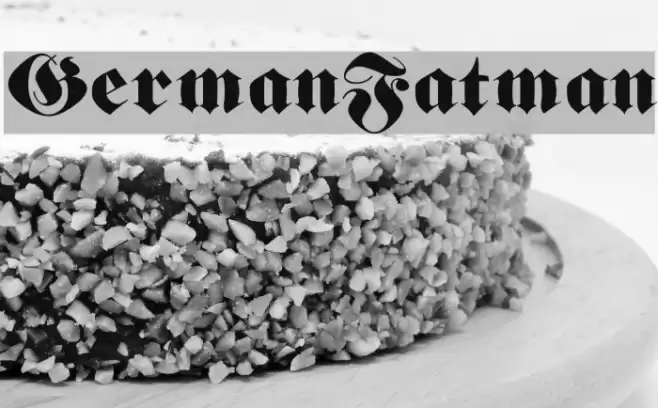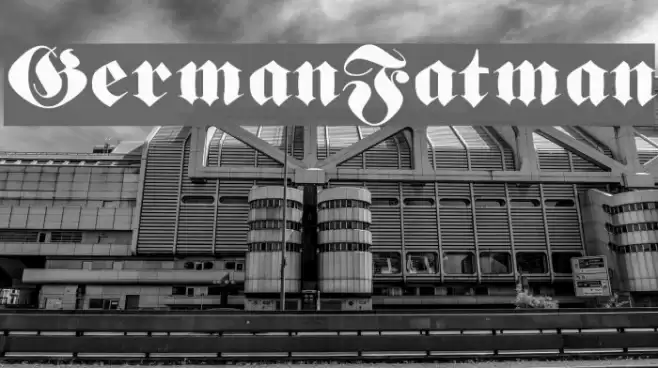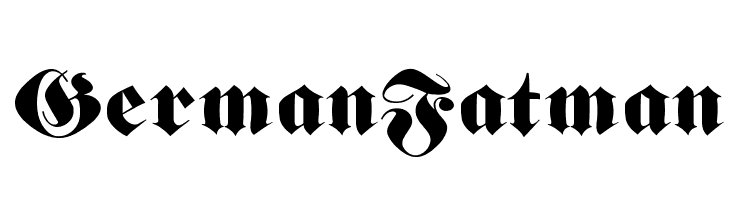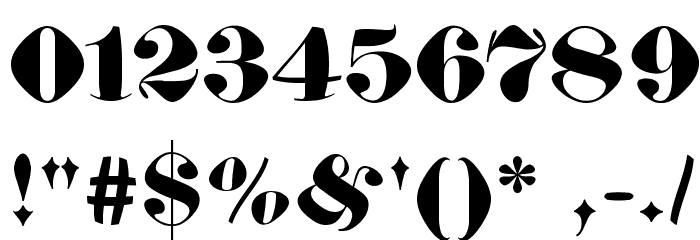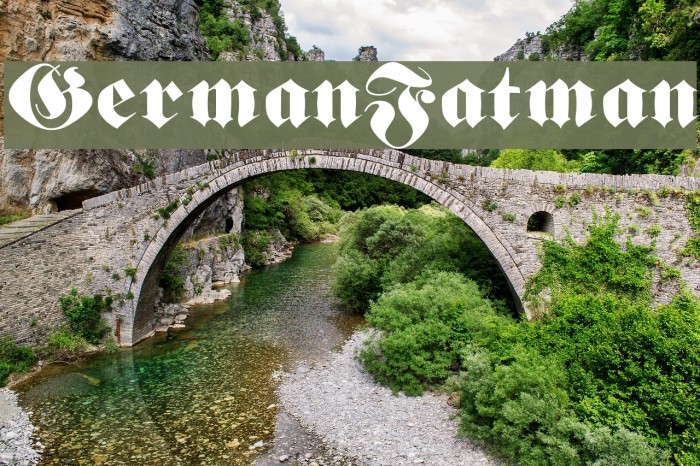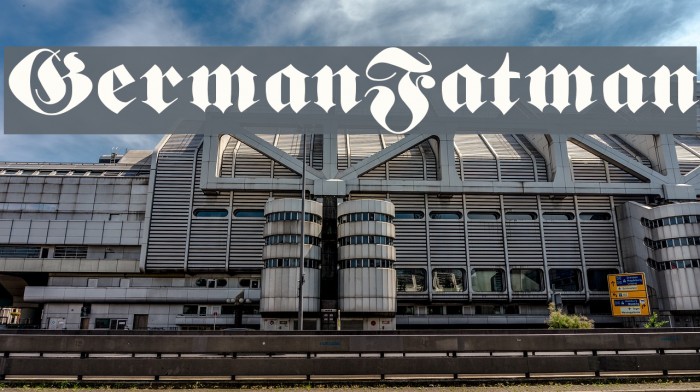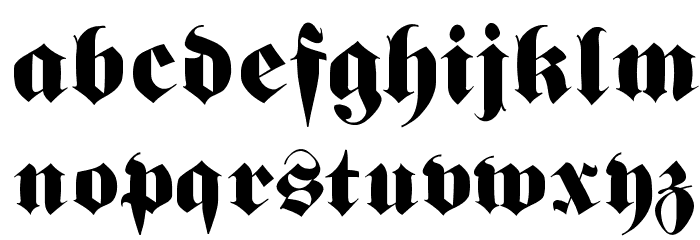
GermanFatman Font
GermanFatman Description
This font embodies the traditional Blackletter style, characterized by its intricate and ornate letterforms. The uppercase and lowercase letters feature sharp, angular lines with dramatic flourishes, reminiscent of medieval script. The numerals maintain this aesthetic with bold, striking shapes. Special characters are equally elaborate, adding to the overall decorative nature of the font. The strokes are thick and consistent, providing a bold presence on the page. This font is ideal for projects that require a historical or gothic touch, such as themed posters, invitations, or branding that seeks to evoke a sense of tradition and elegance.
A bold, ornate Blackletter font with intricate, angular letterforms from Uncategorized fonts.
- Proposed Projects: Ideal for historical-themed designs, gothic posters, invitations, and branding.
- Overall Style: Vintage
- Use Case: Logos, Headlines, Decorative text